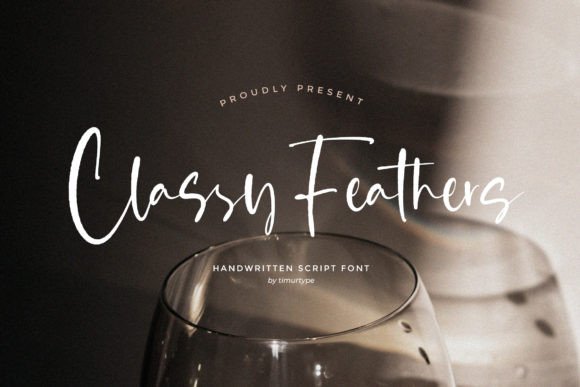
Ignite your designs with Classy Feathers, the captivating script font that exudes sophistication and grace. Its enchanting strokes, reminiscent of a calligrapher's quill, will elevate your creations to new heights of elegance.
Immerse yourself in the world of Classy Feathers, where each letter dances across the page like a delicate feather, carrying a message of love, joy, or inspiration. Whether you're crafting wedding invitations, thank you cards, or heartfelt quotes, this font will transform your words into works of art.
With Classy Feathers, your logos and business cards will radiate an air of professionalism and refinement. Its timeless appeal ensures that your brand identity will leave a lasting impression on clients and customers alike.
Unleash your creativity and explore the endless possibilities of Classy Feathers. Its versatility extends from elegant wedding stationery to eye-catching social media posts, adding a touch of charm to every project you undertake.
Experience the beauty of Classy Feathers today and let your designs take flight. Its timeless style and emotional resonance will captivate your audience, leaving them enchanted by your creations. Embrace the elegance, embody the grace, and let your designs soar with Classy Feathers.